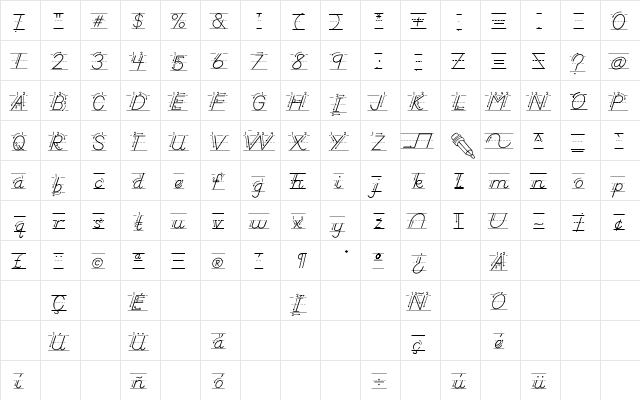
AbcDNManusArrow Regular
Design Context for AbcDNManusArrow Typeface
AbcDNManusArrow offers clean, dependable letterforms without strong stylistic allegiance, making it a practical choice for designers who need flexibility.